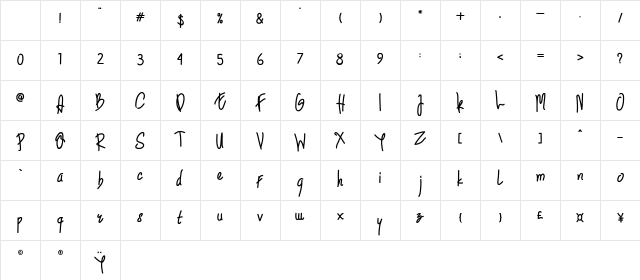
Rowdy Sans is a composed and adaptable typeface that performs quietly and consistently across a wide range of design contexts.
Pro Tip: Use Rowdy Sans in both headline and body roles to test its range before committing to a single application.